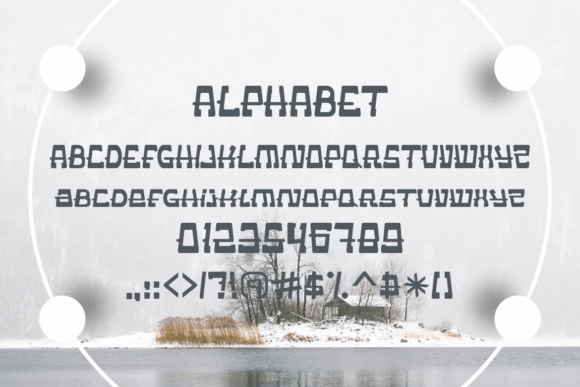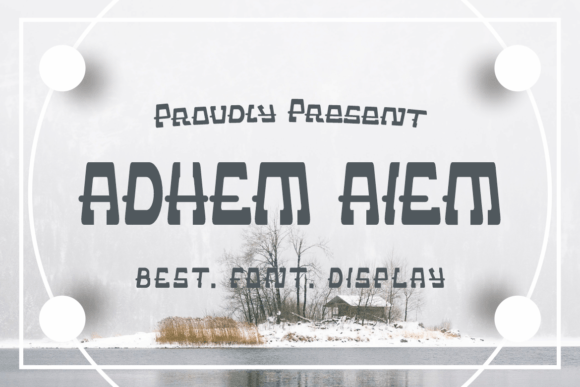
Introducing Adhem Aiem Font: A Bold and Authentic Display Font for Your Branding Needs
In the world of typography, a font can make or break a brand’s identity. A well-crafted font can elevate a brand’s visual presence, convey its personality, and leave a lasting impression on its audience. If you’re a designer, craftsperson, or brand owner looking for a font that exudes boldness and authenticity, look no further than Adhem Aiem Font. In this article, we’ll dive into the features and benefits of Adhem Aiem Font, and explore how it can enhance your branding projects.
A Bold and Authentic Display Font
Adhem Aiem Font is a bold and authentic display font designed to make a statement. Its robust and confident appearance makes it perfect for branding projects that require a strong visual presence. The font’s unique character set and carefully crafted letterforms ensure that it stands out from the crowd, giving your brand a distinctive edge.
Varelmo: A Versatile Font for Various Applications
Varelmo, the font behind Adhem Aiem, is a versatile typeface suitable for a wide range of applications. Whether you’re working on a logo design, t-shirt printing, esports branding, or any other project that requires a bold and eye-catching font, Varelmo has got you covered. Its flexibility and adaptability make it an excellent choice for designers and craftspersons who need a font that can keep up with their creative demands.
Key Features of Adhem Aiem Font
- Bold and Authentic: Adhem Aiem Font boasts a bold and authentic appearance that’s sure to grab attention.
- Versatile: The font is suitable for various branding projects, including logo design, t-shirt printing, esports, and more.
- Unique Character Set: Adhem Aiem Font features a unique character set that sets it apart from other fonts.
- Carefully Crafted Letterforms: Each letterform has been carefully crafted to ensure a high level of legibility and visual appeal.
Benefits of Using Adhem Aiem Font
So, why choose Adhem Aiem Font for your branding projects? Here are just a few benefits of using this exceptional font:
- Instant Recognition: Adhem Aiem Font’s bold and authentic appearance ensures instant recognition and attention-grabbing capabilities.
- Consistency: The font’s versatility and adaptability ensure consistency across various branding projects and applications.
- Creativity: Adhem Aiem Font’s unique character set and carefully crafted letterforms provide a creative foundation for designers and craftspersons.
How to Use Adhem Aiem Font in Your Projects
- Logo Design: Use Adhem Aiem Font as a standalone logo or combine it with other design elements to create a unique brand identity.
- T-Shirt Printing: Adhem Aiem Font is perfect for t-shirt printing, ensuring your designs stand out on apparel.
- Esports Branding: The font’s bold and authentic appearance makes it an excellent choice for esports branding, including team logos, jerseys, and marketing materials.
In conclusion, Adhem Aiem Font is a bold and authentic display font that’s perfect for branding projects that require a strong visual presence. Its versatility, unique character set, and carefully crafted letterforms make it an excellent choice for designers, craftspersons, and brand owners. Whether you’re working on a logo design, t-shirt printing, esports branding, or any other project, Adhem Aiem Font is sure to elevate your brand’s visual identity and leave a lasting impression on your audience.